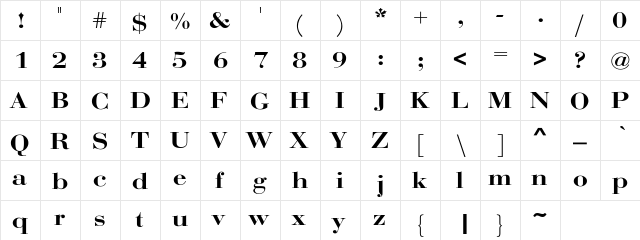
BodoniExt-Bold Regular Font Preview
BodoniExt-Bold Regular
BodoniExt-Bold Regular Font Details
Design Context for BodoniExt-Bold Typeface
BodoniExt-Bold offers clean, dependable letterforms without strong stylistic allegiance, making it a practical choice for designers who need flexibility. Its bold stroke weight gives it real presence on the page.